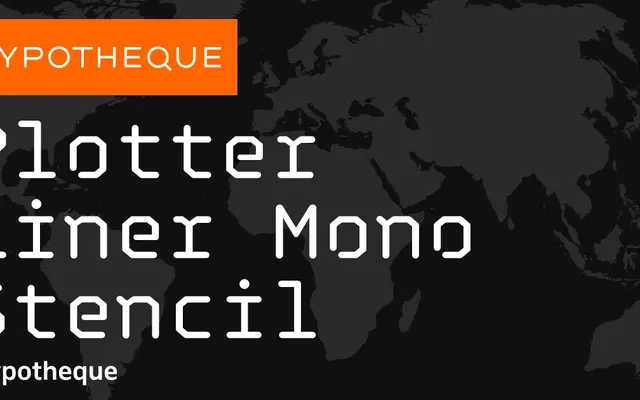
Plotter Liner Mono Stencil
Typotheque
Plotter Liner Mono Stencil specimen from Typotheque
A stencil type system from Typotheque with four distinct subfamilies, including a monospaced variant, a layered display cut, and city-named weights spanning Latin script.
Built as a modular system, the family divides into Plotter Liner, Plotter Liner Stencil, Plotter Liner Mono and Plotter Liner Display, each available in Light through Bold. The Display subfamily extends into four layerable components, labelled A through D, that can be combined for chromatic or dimensional effects. City names — Amsterdam, Bengaluru, Copenhagen, Damascus — serve as weight labels in some configurations, hinting at a broader cultural framing for the system.
A modular stencil system built around monospaced and display cuts with layering capabilities, placing it firmly in the display/technical category rather than conventional text typography.